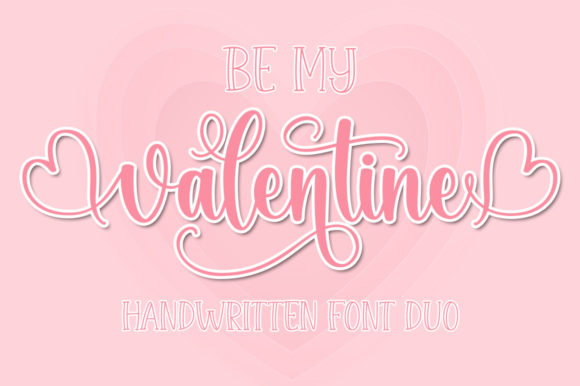
Be My Valentine Font: The Perfect Duo for Your Creative Projects
Are you looking for a font that can add a touch of elegance and romance to your designs? Look no further than Be My Valentine Font, a lovely duo font that features an outlined serif and an elegant and flowing handwritten font. This beautiful font duo is perfect for a wide range of creative projects, from Valentine’s Day cards and invitations to wedding stationery and romantic getaways.
Beautiful and Well-Balanced Characters
One of the standout features of Be My Valentine Font is its beautiful and well-balanced characters. The outlined serif font is clean and crisp, with a sophisticated feel that’s perfect for titles and headings. The elegant and flowing handwritten font, on the other hand, adds a touch of whimsy and romance to any design. The two fonts work together seamlessly, creating a stunning contrast that’s sure to capture the eye.
A Wide Range of Design Possibilities
Be My Valentine Font is incredibly versatile, and can be used for a wide range of design projects. Here are just a few ideas to get you started:
- Valentine’s Day cards and invitations
- Wedding stationery and ceremony decor
- Romantic getaway brochures and travel guides
- Fashion and beauty branding and packaging
- Social media graphics and quotes
Tips for Using Be My Valentine Font
Here are a few tips for using Be My Valentine Font in your designs:
- Use the outlined serif font for titles and headings, and the handwritten font for body text and descriptions.
- Experiment with different font sizes and colors to create visual interest and contrast.
- Add decorative swashes and glyphs to give your designs a personal touch.
- Use Be My Valentine Font in combination with other fonts to create a unique and eye-catching design.
Pairing Be My Valentine Font with Other Fonts
Be My Valentine Font pairs well with a wide range of other fonts, including:
- Script fonts, such as Pacifico or Great Vibes
- Serif fonts, such as Georgia or Times New Roman
- Sans-serif fonts, such as Arial or Helvetica
- What is Be My Valentine Font?
- Be My Valentine Font is a lovely duo font featuring an outlined serif and an elegant and flowing handwritten font.
Be My Valentine Font is a beautiful and versatile font duo that’s perfect for a wide range of creative projects. With its beautiful and well-balanced characters, PUA encoding, and ease of use, it’s a great addition to any designer’s toolkit. Whether you’re creating Valentine’s Day cards, wedding stationery, or romantic getaways, Be My Valentine Font is sure to make your designs come alive.